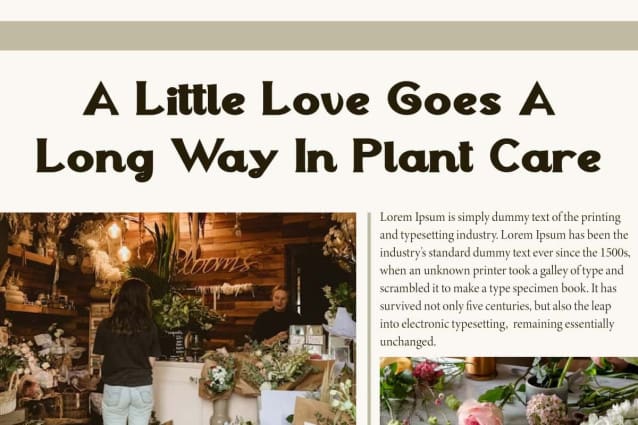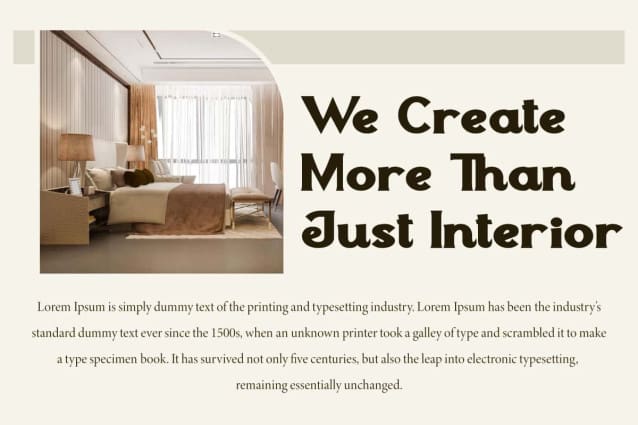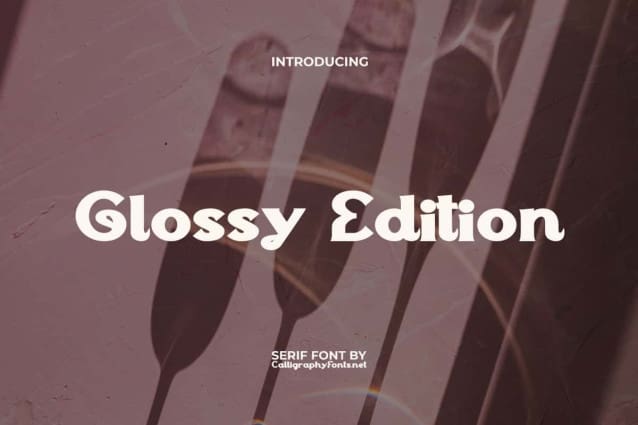
Glossy Edition Font
Glossy Edition Font is a classic serif font made more modern in a bold style with beautiful and compact curves in each character. It presents a typographic look that has its own characteristics in a vintage yet contemporary feel. Perfect for advertising, bouquet, florist, gardener, graphic design, home furniture, interior design, perfume store, printing, web designer, and much more.
Glossy Edition Font is a retro bold serif display that combines vintage charm and modern style making this typeface very impressive for anyone who needs a strong and confident serif. Use this for banner, billboard, blog, covers, custom mug, heading, headline, labels, logos, mockup, packaging, poster, printing, quotes, signage, stickers, template, title, website, and more.